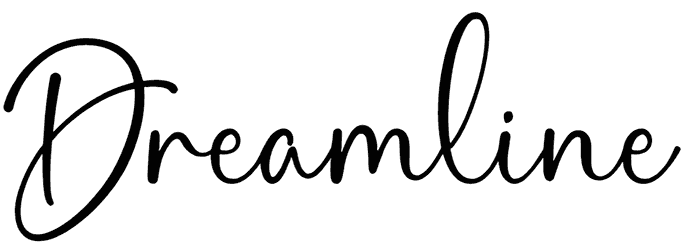
Dreamline Font
Designed byRamli Setiadi
Dreamline is one of the most outstanding offers among the library to the brim of RB, which can convince you to download it without any explanation. This handwritten font has an organic effect that can convey a personal feeling in the space and attract the trust of the audience.
To make the most of this script font’s decorations, we suggest you use it on basic designs such as wedding cards, invitations, or anywhere that does not require numbers representing your brand.